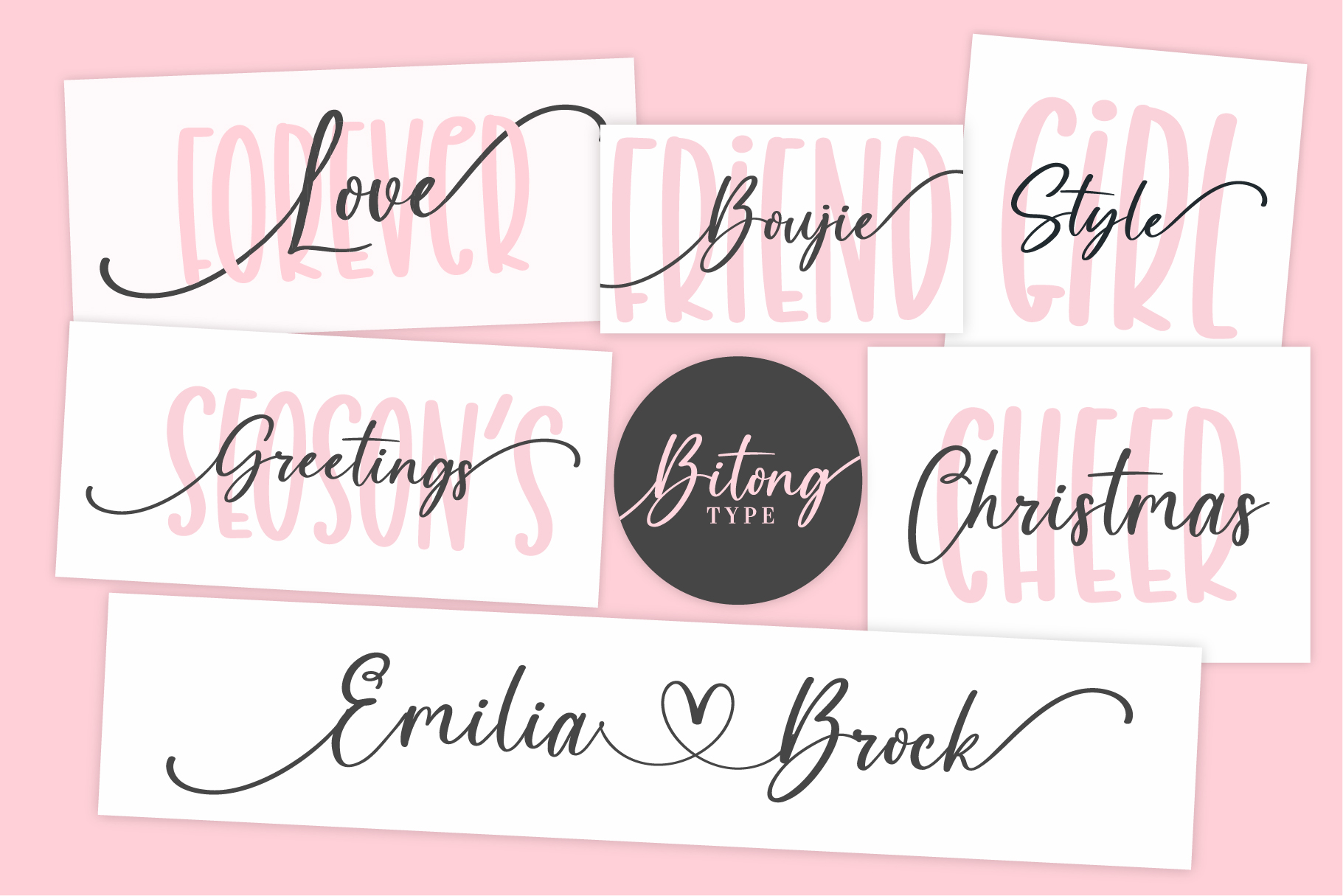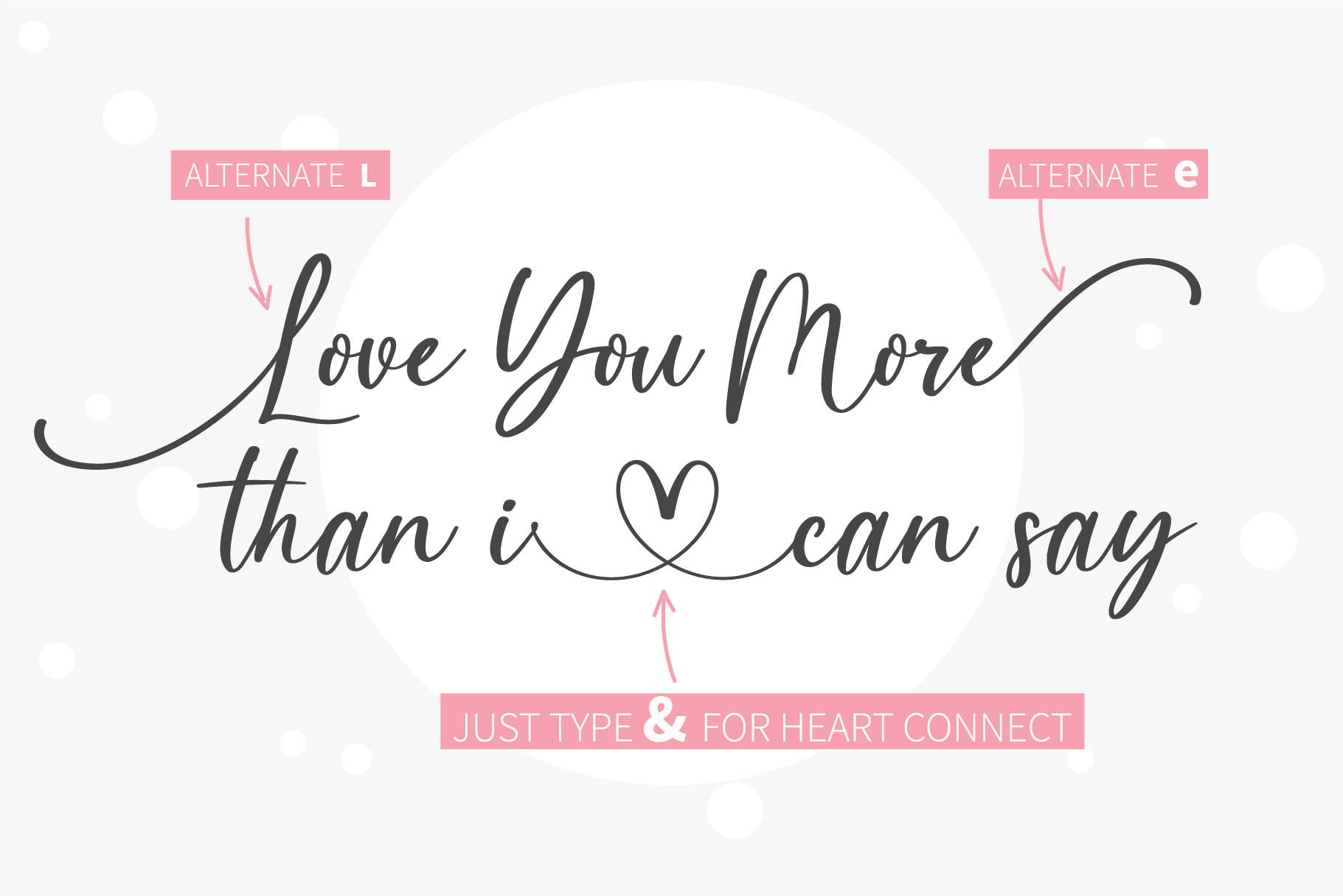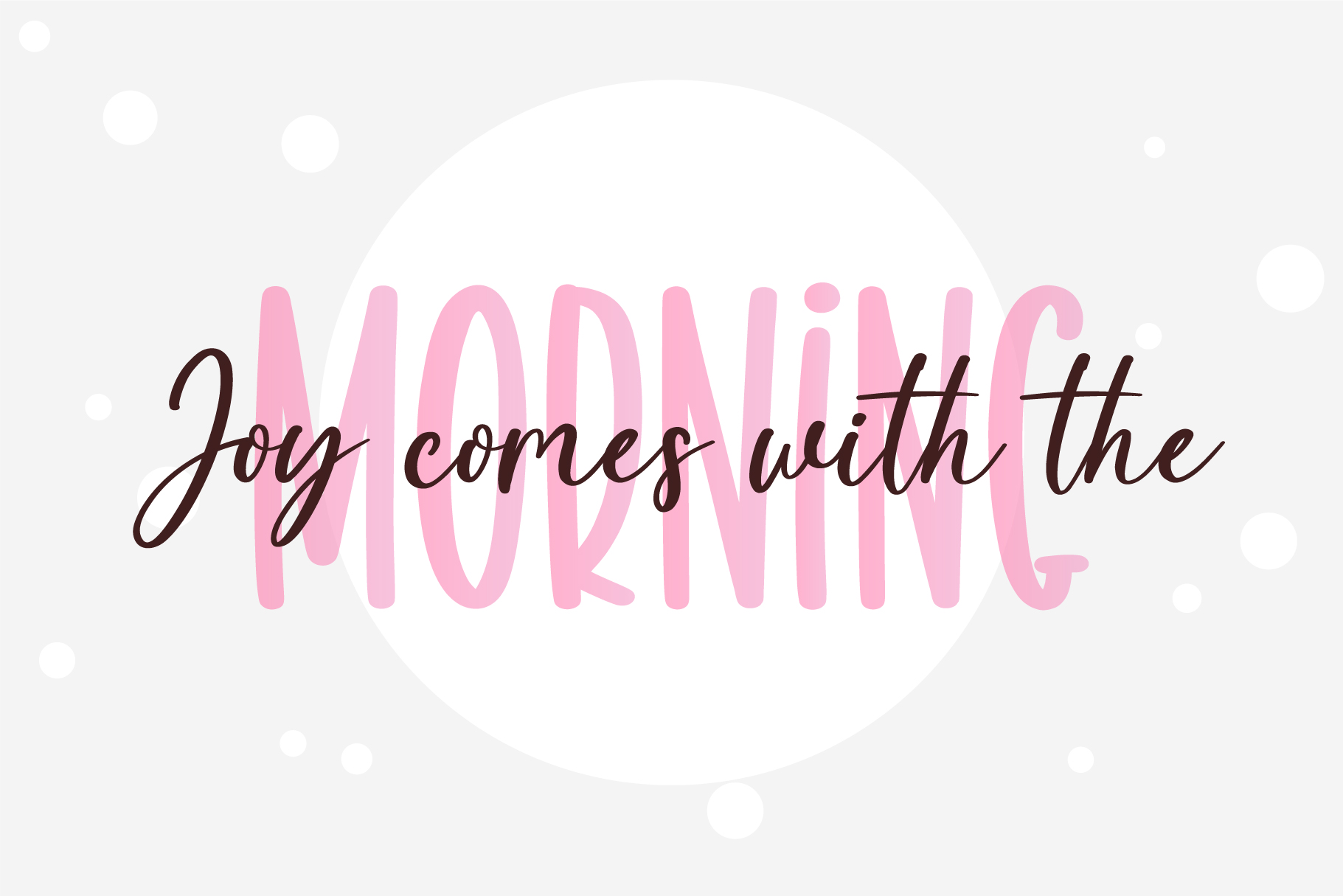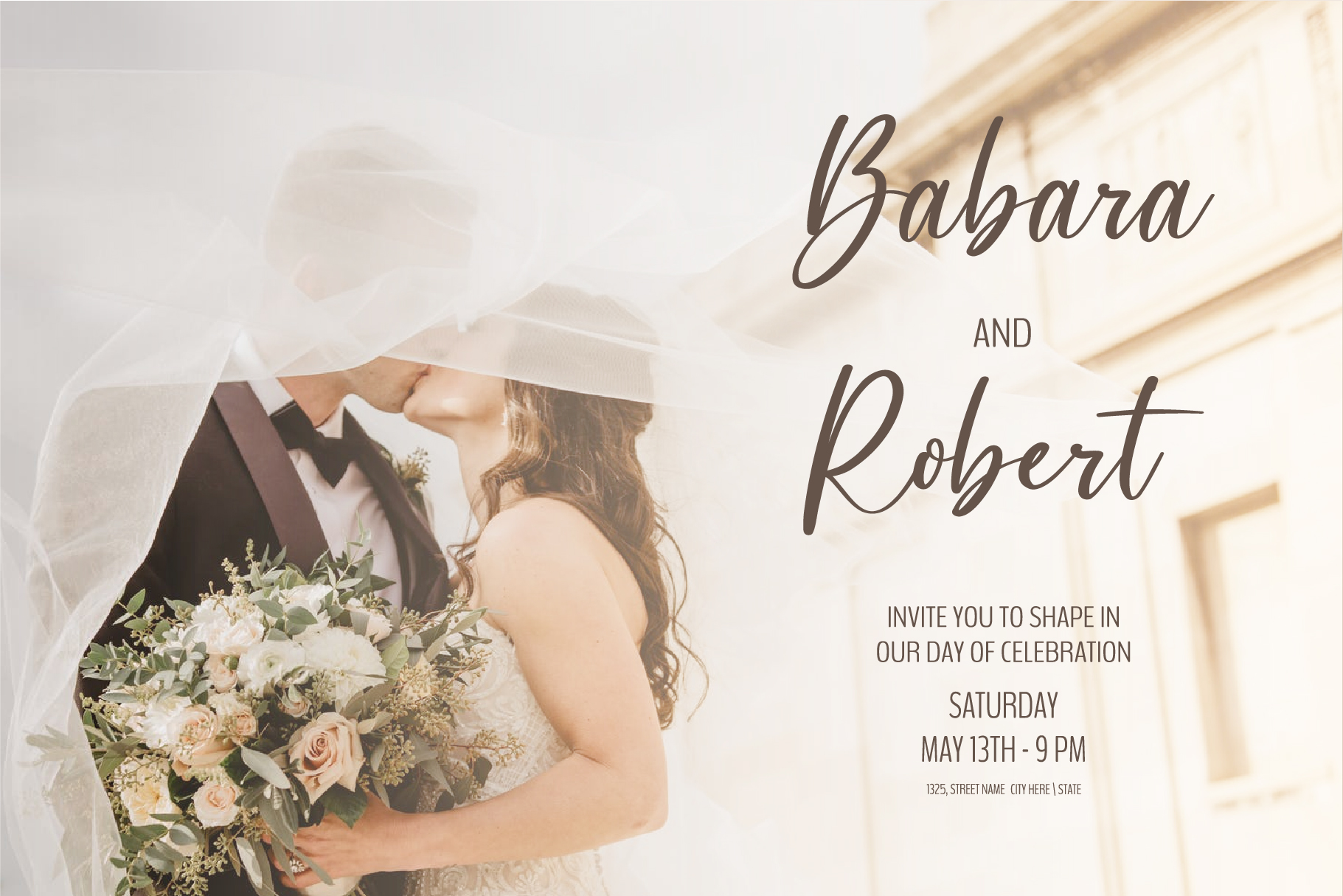
Holiday Cookies Font
Holiday Cookies Script Font
It’s a duo-styled handwritten font that feels equally charming and delicate. This font is PUA encoded which means you can access all of the glyphs and swashes with ease!